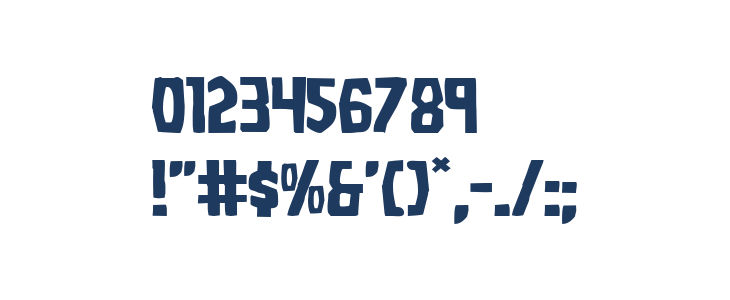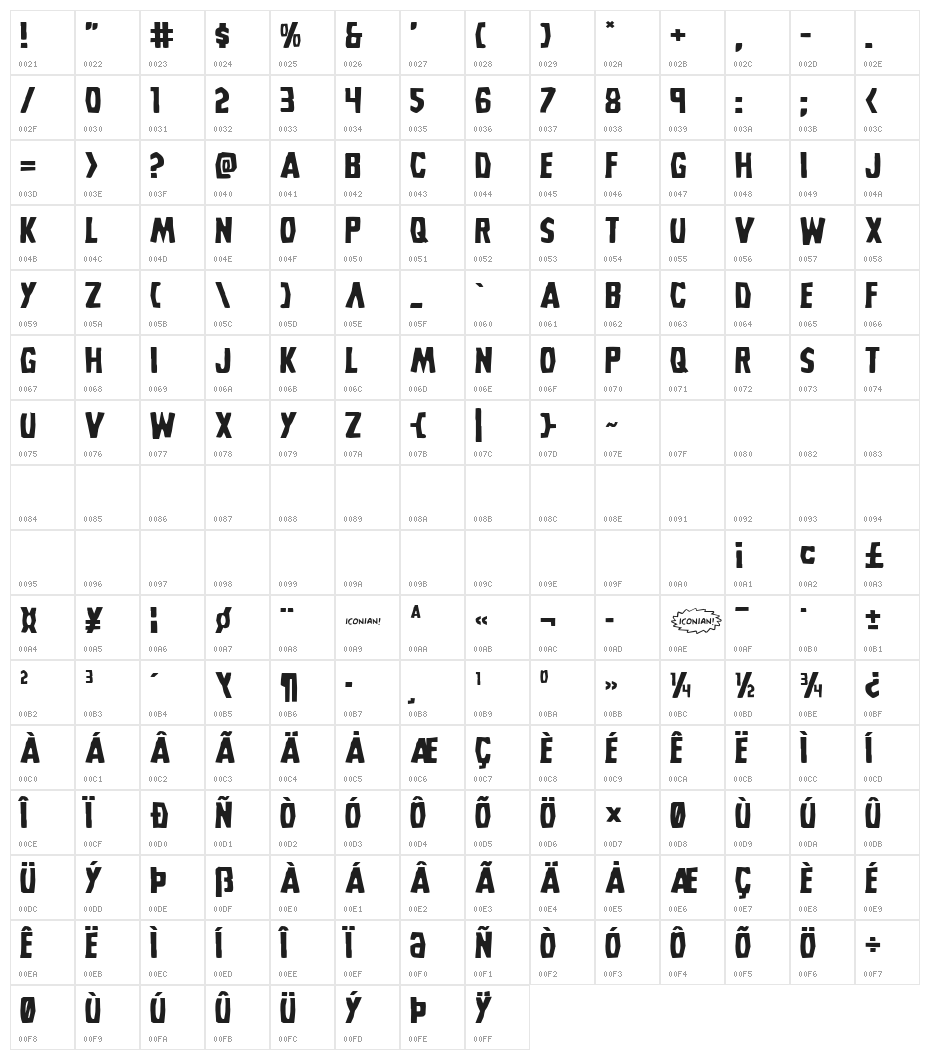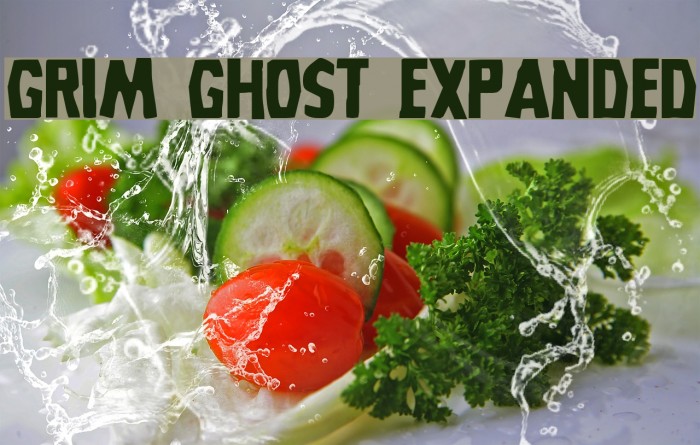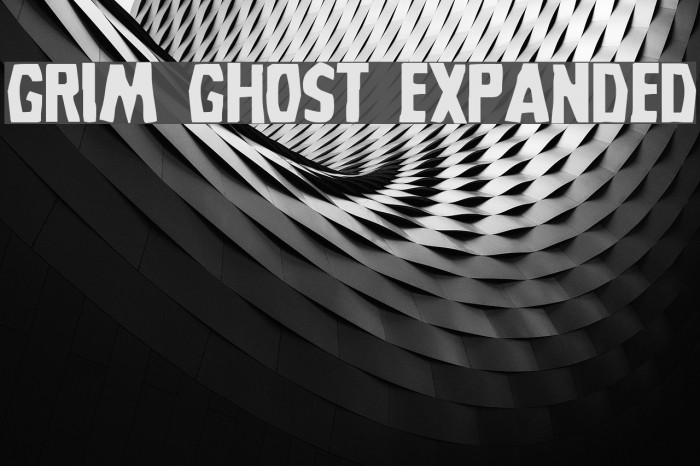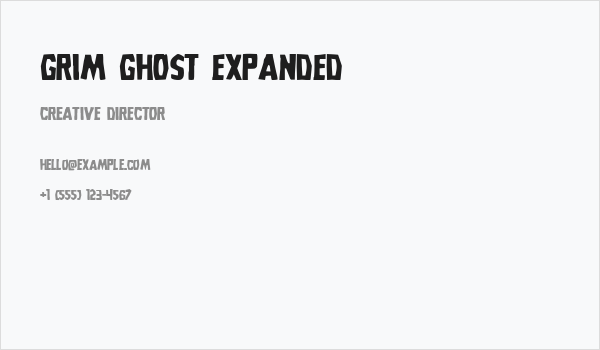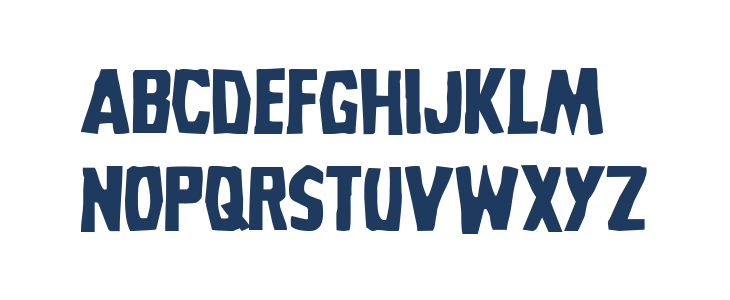
Grim Ghost Expanded Font
Grim Ghost Expanded Description
This font features a bold and dynamic style with a slightly distorted, hand-drawn appearance. The characters are thick and angular, giving them a strong presence on the page. The uppercase letters are particularly striking, with a rugged and edgy look that suggests a sense of movement and energy. The numbers and special characters maintain this boldness, ensuring consistency across all glyphs. The overall design is reminiscent of graffiti or street art, making it ideal for projects that require a bold, unconventional aesthetic.
| Proposed Projects | Ideal for posters, album covers, street art designs, and any project needing a bold, unconventional look. |